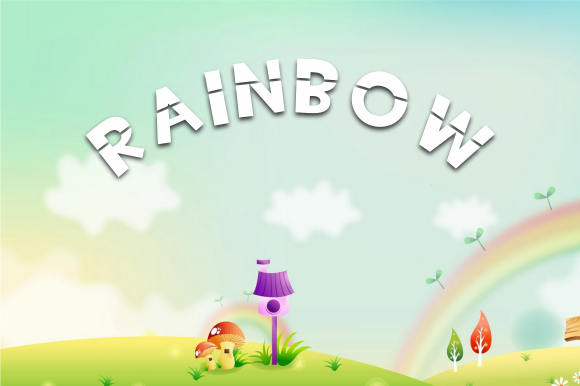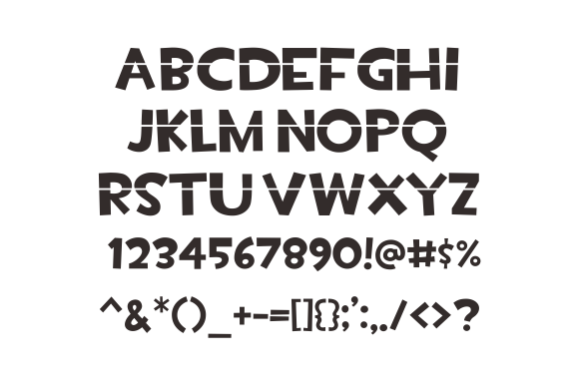
The Perfect Design Companion: Unleashing the Power of Cereme Font
Have you ever been stuck in a design rut, staring at a blank page, searching for that perfect font to elevate your project? I know I have. It’s that moment when everything falls into place, and your design starts to come alive. You’re on a roll, and nothing can stop you. But, what if I told you that there’s a font that can make this magic happen every time?
Meet Cereme Font, a bold and striking display font designed to make a statement. Its thick, cool letters are perfect for grabbing attention and adding a touch of sophistication to any design. Whether you’re creating a poster, flyer, or print, Cereme Font is the perfect companion to help you unleash your creativity.
Cereme Font Key Features
- Font Family: Cereme Font is a sans-serif font family designed to cater to various digital and print media applications.
- Unique Characteristics: Cereme Font features a modern and clean design aesthetic, with a focus on legibility and readability in digital environments.
Cereme Font Review
Cereme Font is an elegant and refined sans-serif font that exudes sophistication and modernity. Here’s my honest take on this font:
- Unique character set: Cereme Font boasts a distinct character set that sets it apart from other sans-serif fonts.
- Excellent legibility: This font is highly legible, making it perfect for body text and large amounts of content.
- Modern feel: Cereme Font’s sleek design gives it a modern and contemporary feel that’s perfect for branding and design projects.
- Limited language support: Unfortunately, Cereme Font doesn’t support a wide range of languages, which might be a limitation for global brands or projects.
- No bold or italic variants: While the font has a unique character set, it’s missing bold and italic variants, which might limit its usability in certain contexts.
Overall impression
Cereme Font is a solid choice for designers looking for a modern and elegant sans-serif font. While it has its limitations, its unique character set and excellent legibility make it a great option for branding and design projects. With some tweaks to address the limitations, Cereme Font could be a top contender in the font market.
Getting the Most Out of Cereme Font
For optimal results, use Cereme Font in a bold or italic style to add emphasis to your text.
Cereme Font is ideal for:
1. Creating elegant and sophisticated designs.
2. Adding a touch of luxury to your branding materials.
3. Designing invitations, menus, and other high-end print materials.
Alternatives to Cereme Font
Montserrat is a popular sans-serif font that is highly legible and versatile. It is a great alternative to Cereme Font for body text and headings, especially in digital interfaces. Montserrat has a similar modern feel to Cereme Font but with a more geometric and minimalist aesthetic.
Open Sans is another widely used sans-serif font that is highly readable and works well in a variety of contexts. It is a good alternative to Cereme Font for body text and is particularly suitable for digital interfaces and print materials. Open Sans has a slightly more rounded feel to Cereme Font but maintains a clean and modern look.
Inter is a modern sans-serif font that is highly legible and versatile. It is a great alternative to Cereme Font for body text and headings, especially in digital interfaces. Inter has a similar geometric feel to Cereme Font but with a more refined and sophisticated aesthetic.
Lato is a sans-serif font that is highly legible and works well in a variety of contexts. It is a good alternative to Cereme Font for body text and is particularly suitable for print materials and digital interfaces. Lato has a slightly more rounded feel to Cereme Font but maintains a clean and modern look.
Creative Project Ideas using Cereme Font
Project 1: Whimsical Woodland Wedding Invitations
Design a set of whimsical woodland-themed wedding invitations using the Cereme Font. The elegant and refined script font will add a touch of sophistication to the invitations.